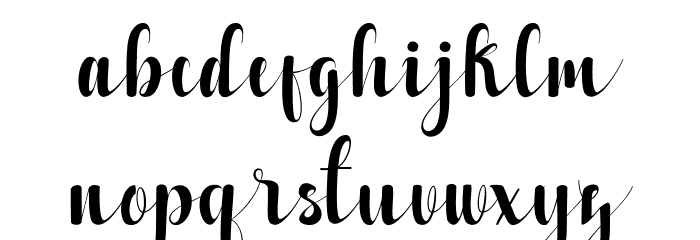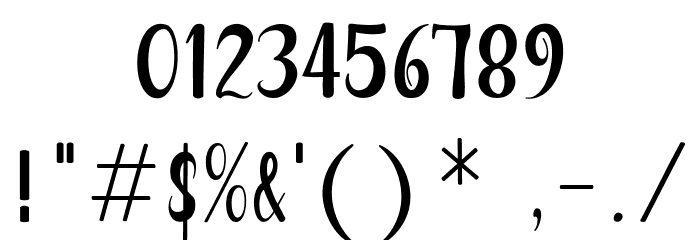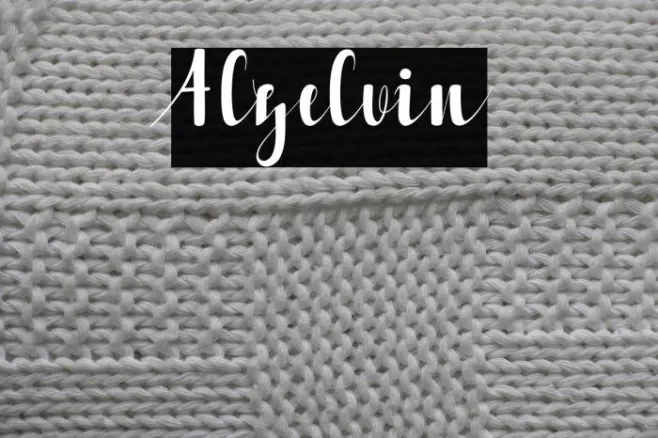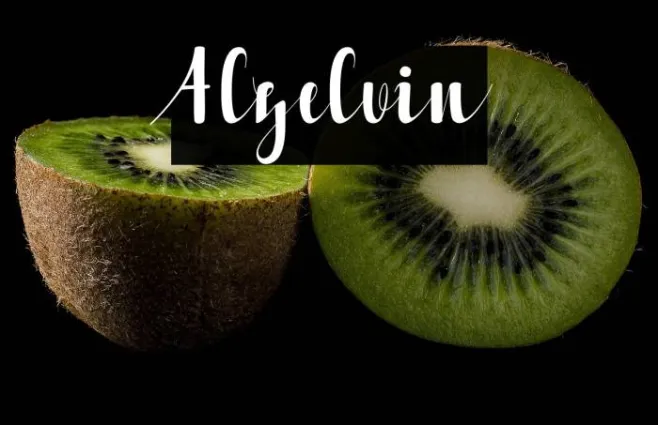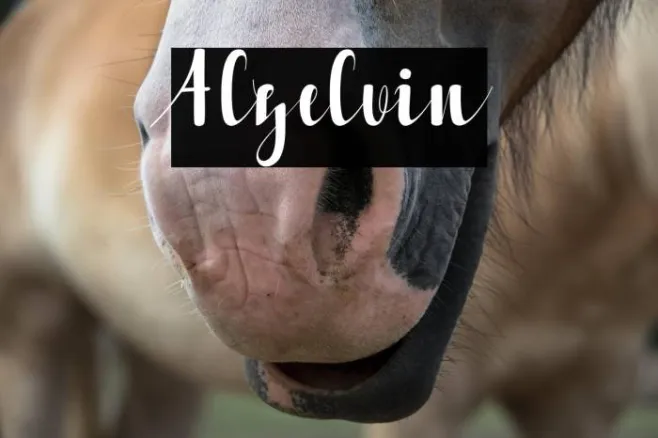
Alzelvin Font
This font features a dynamic and expressive style, combining elements of both script and display fonts. The uppercase letters are bold and slightly condensed, with a playful and artistic flair. The lowercase letters exhibit a flowing, cursive quality, adding elegance and movement to the text. The numerals are consistent with the overall style, maintaining a balance between readability and decorative appeal. Special characters are thoughtfully designed, complementing the font's unique aesthetic. This font is ideal for creative projects that require a touch of sophistication and personality.
A dynamic and expressive font blending script and display styles.
- Font: Alzelvin
- Proposed Projects: Perfect for branding, invitations, posters, and creative design projects.
- Use Case: Logos, Headlines, Invitations